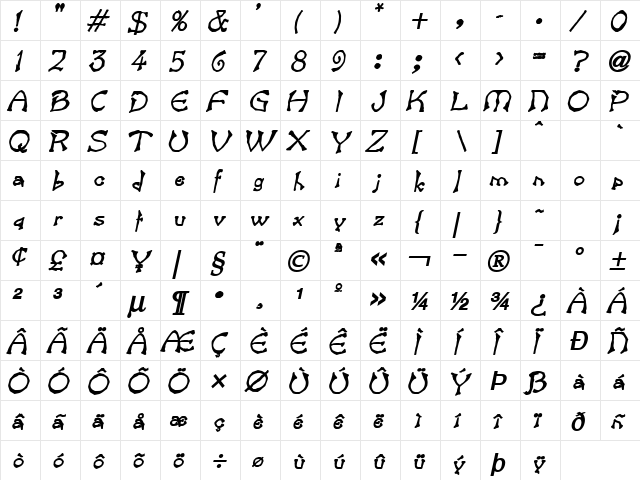
Bart Heavy Italic
Design Context for Bart Heavy Typeface
Bart Heavy is a composed and adaptable typeface that performs quietly and consistently across a wide range of design contexts. Its italic angle brings a sense of urgency and motion to the letterforms.
Pro Tip: Try Bart Heavy for annotation and caption copy alongside an upright companion — the contrast in angle creates a dynamic but ordered typographic system.